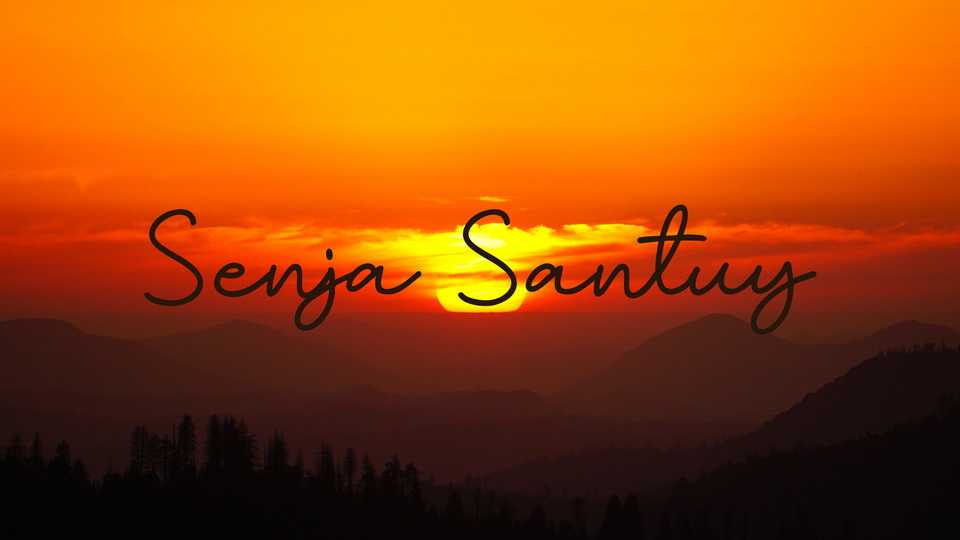
Download Senja Santuy font, a simple and casual monoline script typeface. With its natural handwritten look, Senja Santuy font is perfect to add a personal touch to any design.
Designer: Zuzulgo Studio